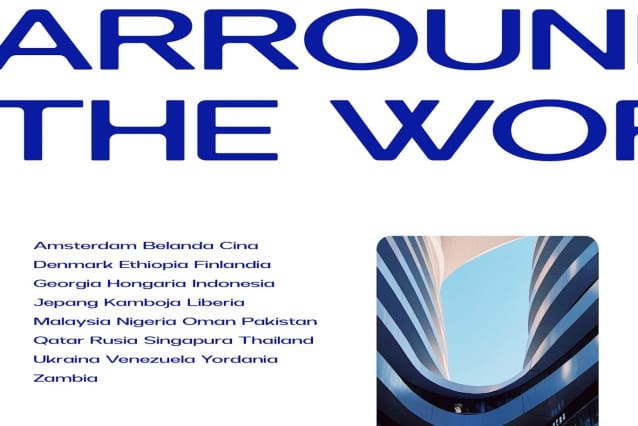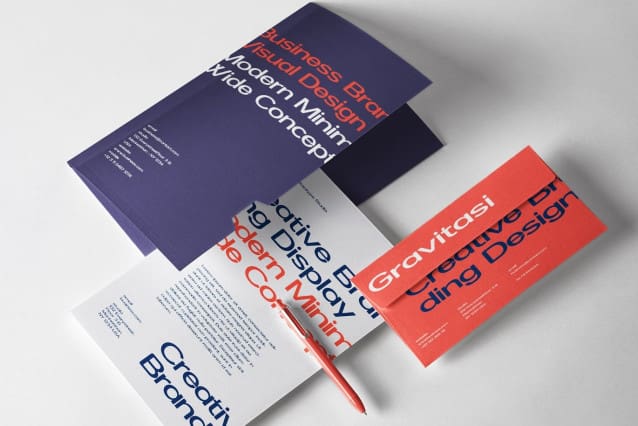
Sonety Font
Sonety Font is a modern letterless typeface with broad geometric details and deeply rooted in industrial design principles. Sonety comes to help you make your design project more attractive and eye-catching.
Sonety is the ideal choice for any creative, chic and lifestyle design, like logos, advertisements, watermarks on photographs, stationery, branding projects, displays and magazines, invitations, brands corporate, product design, labels, commercial projects and many other projects with an industrial touch.